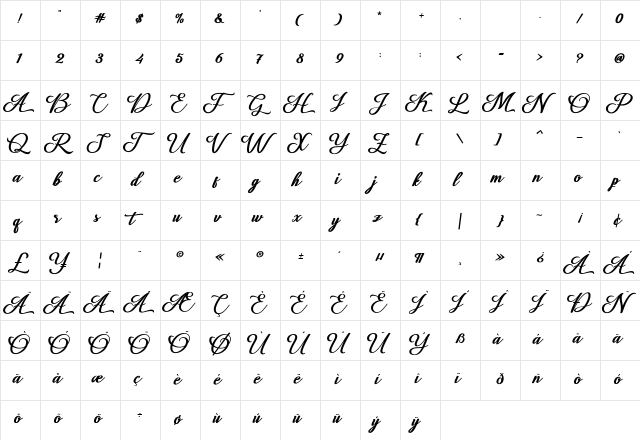
Losttimoh Regular
| Foundry | Wandani Creative |
| Designer | Rizaldi Wandani |
Design Context for Losttimoh Typeface
Losttimoh is a composed and adaptable typeface that performs quietly and consistently across a wide range of design contexts.